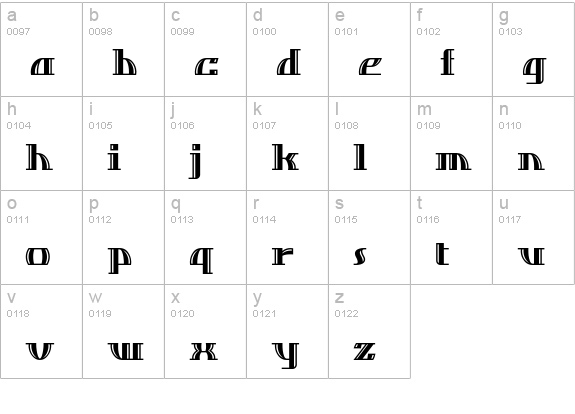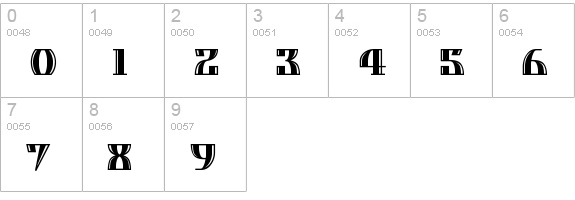
DosEquis Font Details
Introducing DosEquis font, a versatile and stylish typeface that exudes sophistication and elegance. With its sleek lines and modern appeal, DosEquis is the perfect choice for projects that require a touch of class. This font effortlessly blends tradition with contemporary design, making it suitable for a wide range of applications. One of the most appealing features of DosEquis font is that it is completely free to download at FontsMarket.com. This means you can enhance your designs with this exceptional font without having to spend a dime. Whether you're working on branding materials, invitations, posters, or any other creative project, DosEquis font will elevate your work to the next level. With its timeless aesthetic and seamless legibility, DosEquis font is sure to make a lasting impression on your audience. Download it today and experience the beauty and versatility of this exceptional typeface.